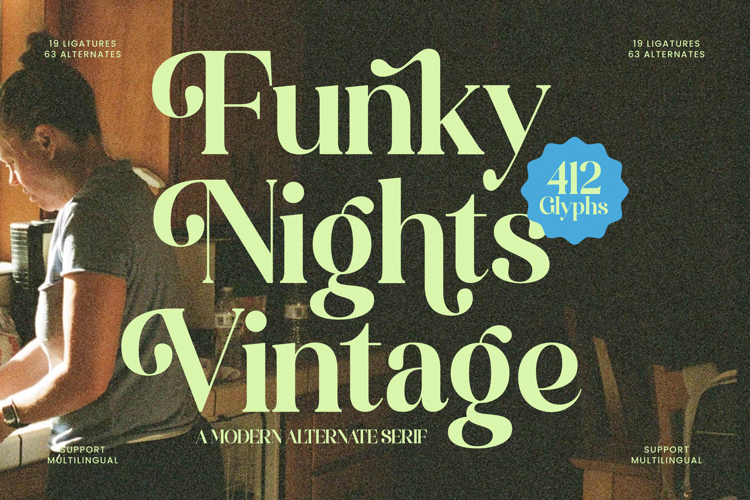
Funky Nights Vintage - Modern Alternate Serif
Discover typography that effortlessly bridges eras. Funky Nights Vintage is a captivating serif typeface, a masterful blend of vintage charm and contemporary elegance. Its high-contrast letterforms, fluid curves, and distinctive serifs create an instant visual impact, projecting both sophistication and a playful spirit. This font is meticulously crafted to imbue your projects with a unique, memorable character that stands out.
Unleash unparalleled creative freedom with its rich feature set. Funky Nights Vintage boasts an impressive array of 19 ligatures and 63 alternates, alongside 412 comprehensive glyphs, offering designers immense creative flexibility. These expansive options allow for truly customized headlines, logotypes, and textual compositions, ensuring every design carries a distinctive personality and bespoke artistry.
Expand your design reach without boundaries. With its extensive multilingual support, Funky Nights Vintage adapts seamlessly across global markets, making it incredibly versatile for international projects. This crucial feature ensures your brand message resonates universally, maintaining its elegant aesthetic and professional appeal regardless of language, empowering truly global communication.